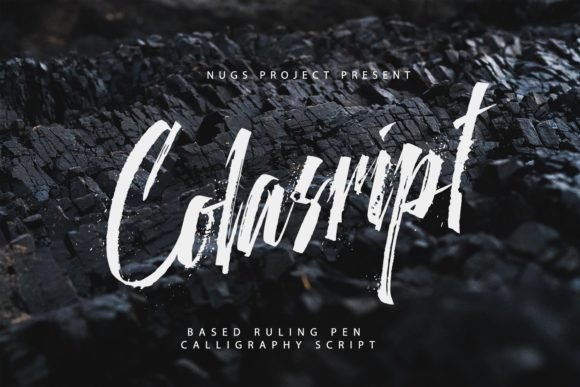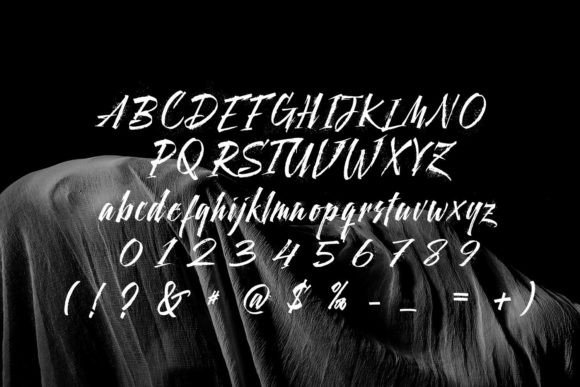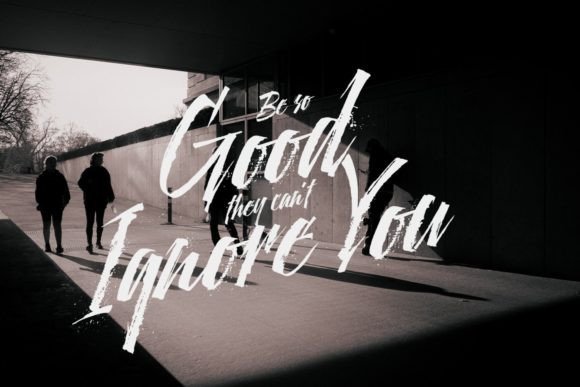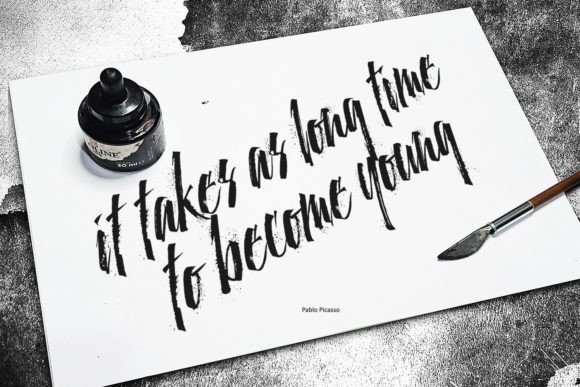
Colascript Font
About Colascript Font
Colascript is not just a font; it’s a masterpiece created with precision and artistry. Crafted using a ruling pen and meticulous hand scratches, this font embodies the essence of creativity and craftsmanship. Processed to perfection, Colascript transforms these intricate details into amazing vectors, making it a versatile choice for a wide range of promotional and design applications.
Imagine Colascript in product promotions. Whether it’s on labels, packaging, or promotional materials, this font adds a touch of handmade authenticity. Its unique texture and carefully crafted strokes create a sense of craftsmanship and attention to detail, enhancing the product’s visual appeal. Colascript turns ordinary products into artisanal creations, making them stand out on shelves and captivating the attention of customers.
In apparel designs, Colascript adds a touch of artistic flair. Picture it on shirts, hoodies, or mugs. Its handcrafted elements create a sense of uniqueness, making the apparel pieces visually appealing and memorable. Colascript’s authentic texture ensures that the designs have a personalized and artisanal touch, reflecting the wearer’s appreciation for handmade craftsmanship. This font enhances the appeal of apparel, making it trendy and fashionable for those who appreciate artistic expression.
For business cards and logos, Colascript makes a bold statement. Its hand scratches and ruling pen strokes create a distinctive and memorable brand identity. Whether it’s a boutique store, a creative agency, or an artisanal café, this font adds a touch of creativity and sophistication to the branding. Colascript’s artistic design ensures that the logo and business cards leave a lasting impression on clients and customers, creating a strong brand presence and recognition.
In poster designs, Colascript adds an element of artistry. Whether it’s used for typographic quotes, event posters, or art prints, this font creates visually stunning compositions. Colascript’s handcrafted appearance enhances the visual impact of the posters, making them captivating and visually engaging. The font’s unique texture adds depth and character to the designs, creating a memorable and artistic experience for viewers.
Moreover, Colascript seamlessly integrates into social media content and digital designs. Whether it’s overlaid on photos or used in digital advertising, this font adds a touch of handmade charm. Colascript’s carefully crafted vectors create a sense of authenticity, making the content visually appealing and shareable. Whether you’re designing social media posts, digital banners, or website headers, Colascript infuses a sense of artistry, creating a positive and memorable online experience for viewers and customers.
In summary, Colascript is more than just a font; it’s a work of art that enhances your designs with handmade authenticity and creativity. Its unique combination of ruling pen strokes and hand scratches makes it suitable for a wide range of applications, from product promotions and apparel designs to logos, posters, social media content, book covers, and packaging designs. So, let Colascript be your creative canvas, adding an artistic and authentic touch to your designs and captivating anyone who experiences them.